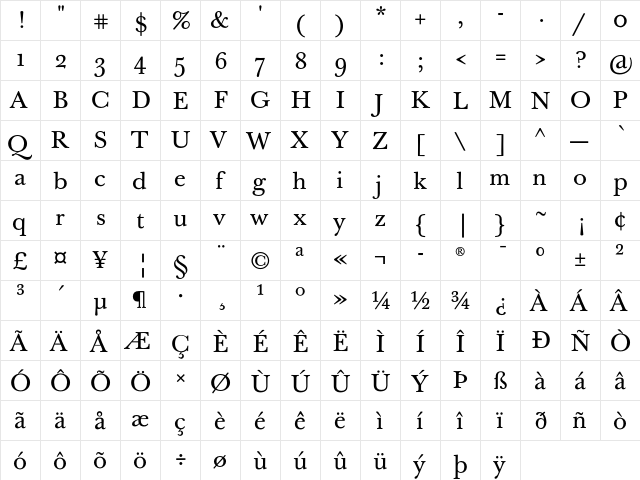
Baskerville Ten OT Regular
| Designer | Frantisek Storm |
Design Context for Baskerville Ten OT Typeface
Baskerville Ten OT is a composed and adaptable typeface that performs quietly and consistently across a wide range of design contexts.
Pro Tip: Use Baskerville Ten OT in both headline and body roles to test its range before committing to a single application.